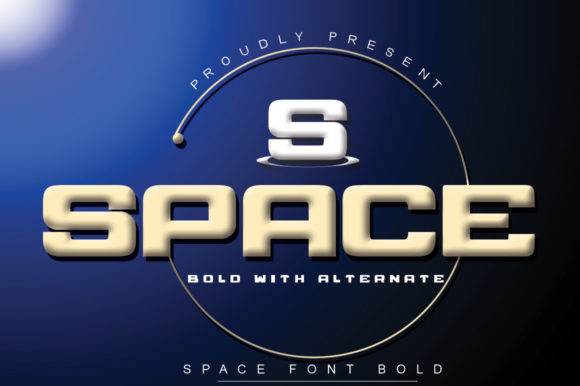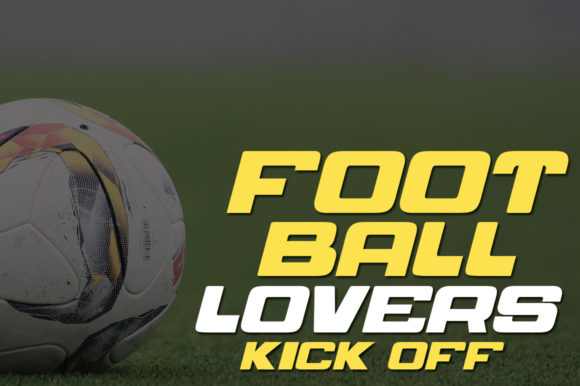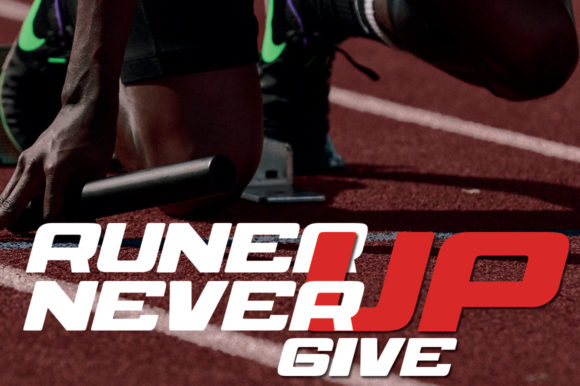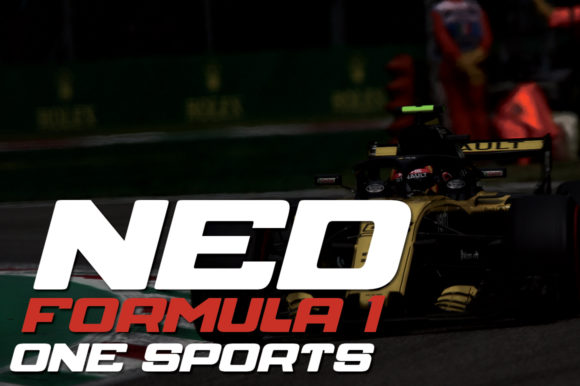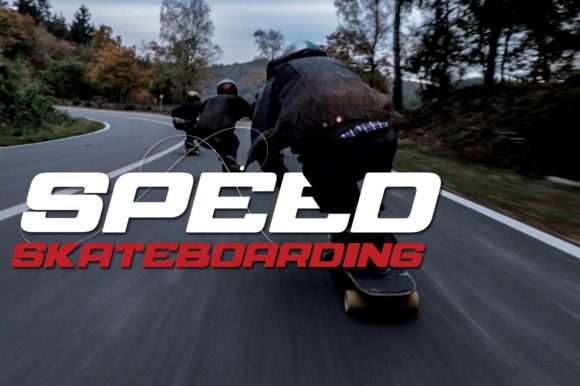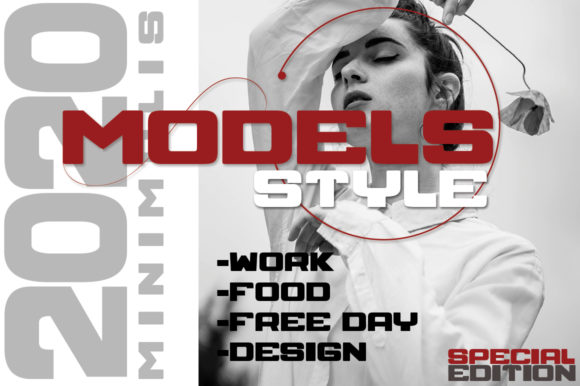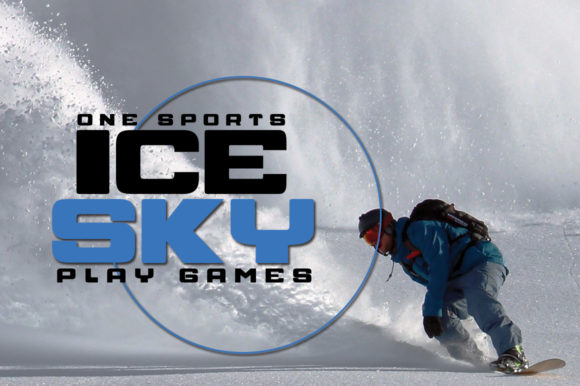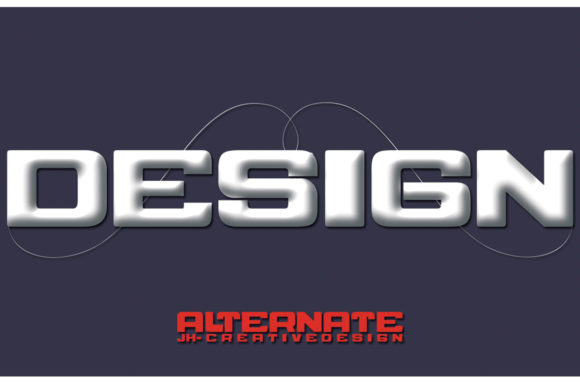
HomeSans Serif FontsSpace Font Sans Serif Fonts Space Font FacebookXPinterestWhatsApp Space Font 1 of 8 About Space Font Space is a playfully modern sans serif font with a dynamic style. It will look its best when used for sports and gaming projects! DOWNLOAD NOW People also explored Ayulia Molga Font Cupcake Font Hello Graduation Font Washington Signature Font Mangkualam Font Delphine Font Bigdream Font Heather Prism Mint Bella Canvas 3001 Relaxii Font 346 0 TagsSpaceSpace Font Previous articleMostica FontNext articleBlankco Extra Black Font LEAVE A REPLY Cancel reply Comment: Please enter your comment! Name:* Please enter your name here Email:* You have entered an incorrect email address! Please enter your email address here Website: Save my name, email, and website in this browser for the next time I comment. Personal Use Free Super Discount Personal Use Free Read more about this font New Normal Personal Use Free Read more about this font Kinda Sweet Personal Use Free Read more about this font Zeshane Personal Use Free Read more about this font BLOG Using Fonts in Digital Marketing: Tips to Strengthen Your Brand Identity In the realm of digital marketing, every visual element plays a crucial role in shaping a brand's identity, and fonts are no exception. The... Modern Sans-Serif Fonts That Brands Love in 2025 Top 7 Google Fonts Alternatives for Faster and Privacy-Friendly Web Design (2025) The 10 Best Handwriting Fonts to Add Personality to Your Designs